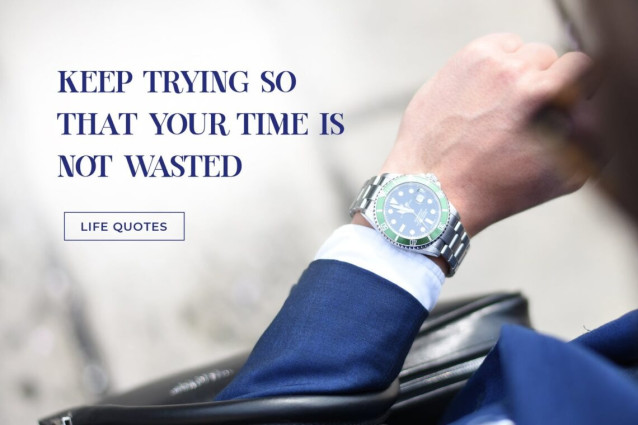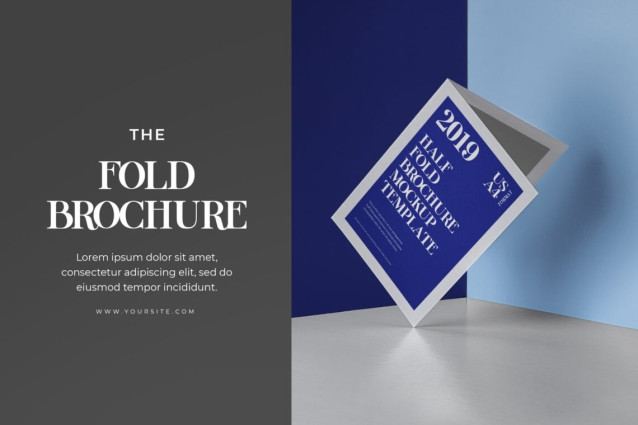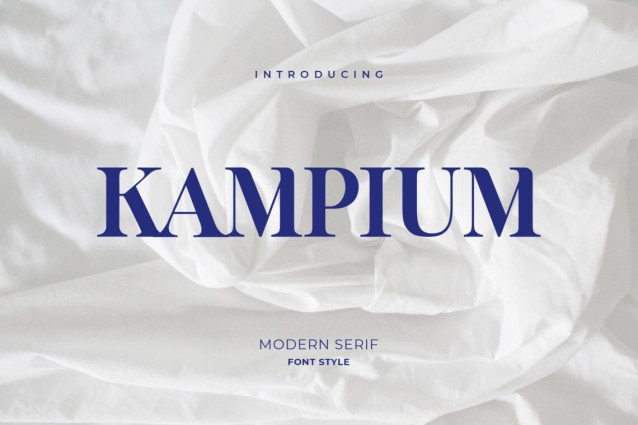
Kampium Serif Font
Kampium Serif Font is a simple and unique font belonging to the modern serif family. inspired by the decorative era, It perfectly represents vintage aesthetics in a modern and minimalist way. having a combination of upper and lower case letters, numbers, and similar punctuation makes this font always balanced for use in various projects, branding, and products such as elegant logos, wall paintings, headlines, posters, T-shirts, cafes, salons, packaging products, etc. Make your design ideas more inspirational and awesome right now!.